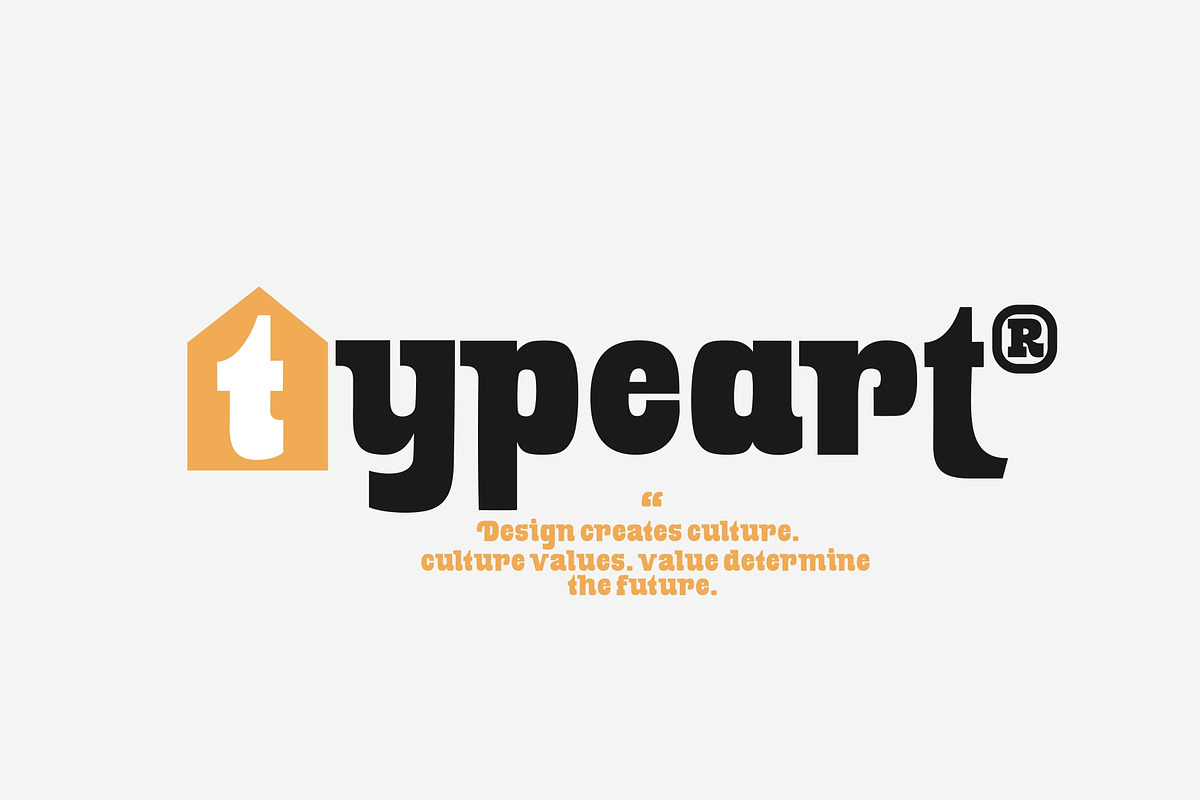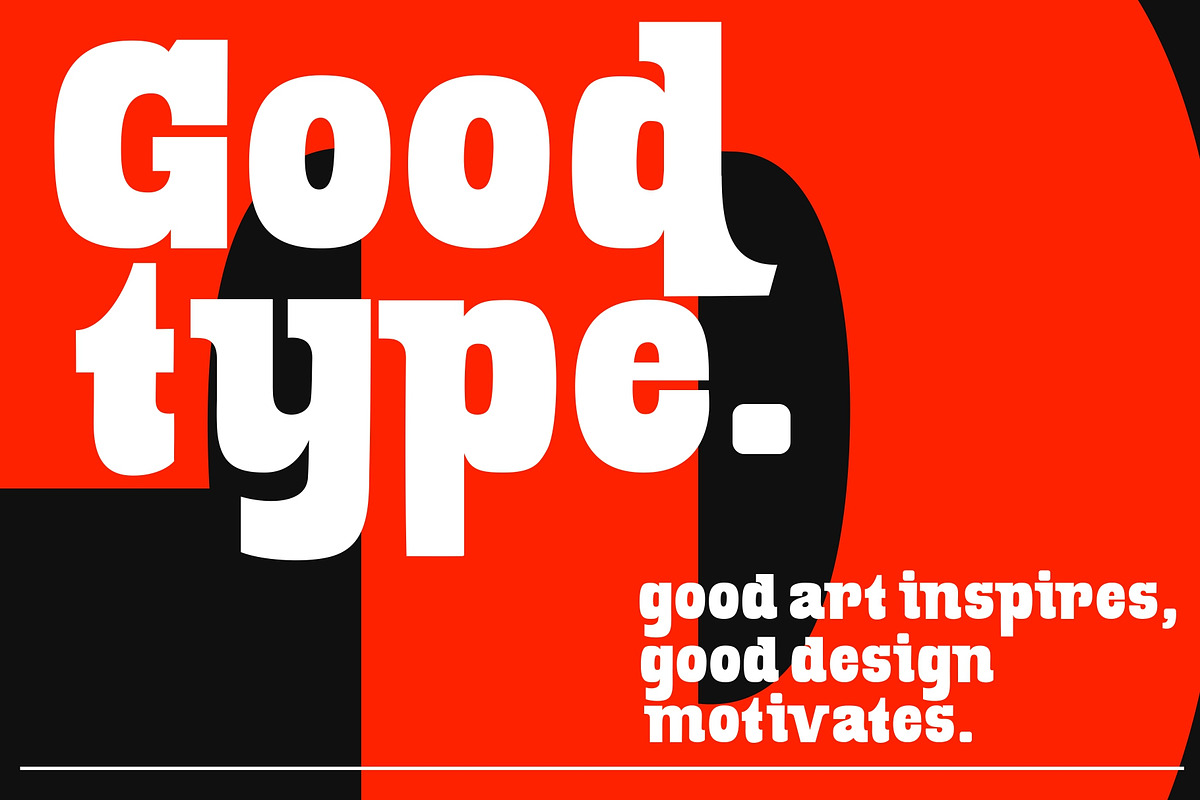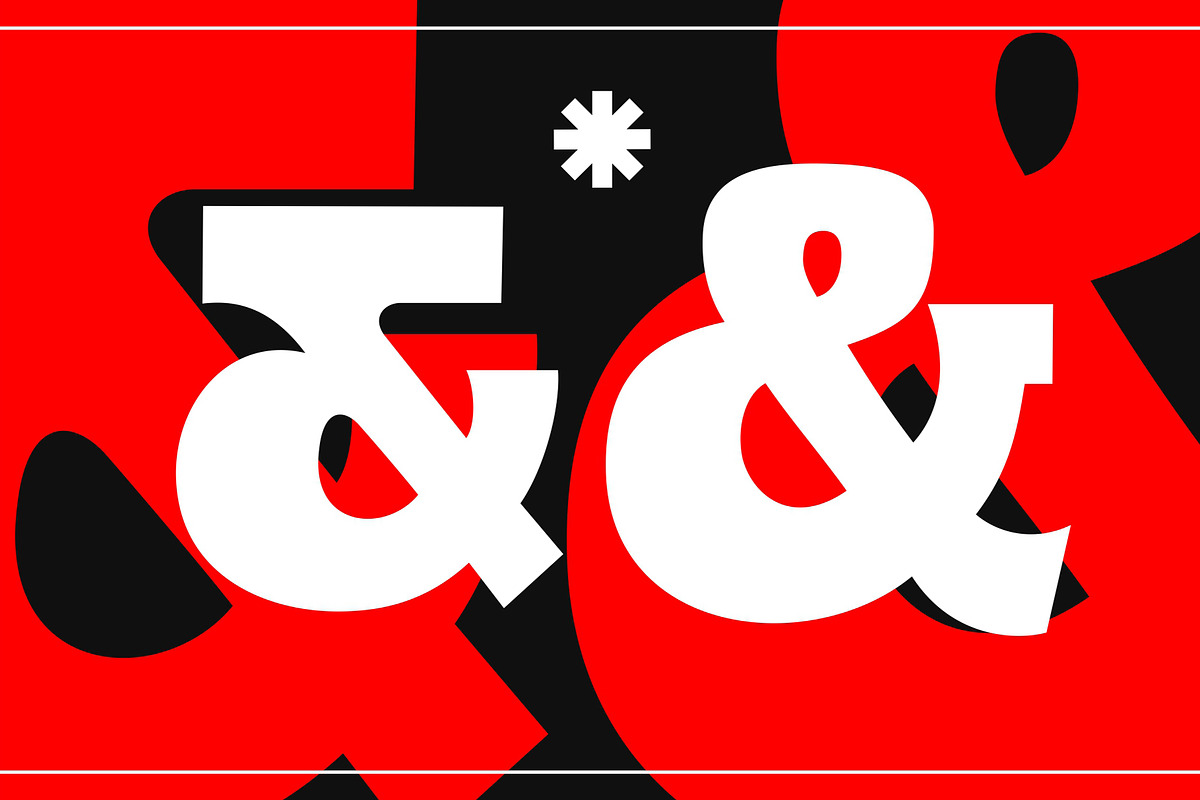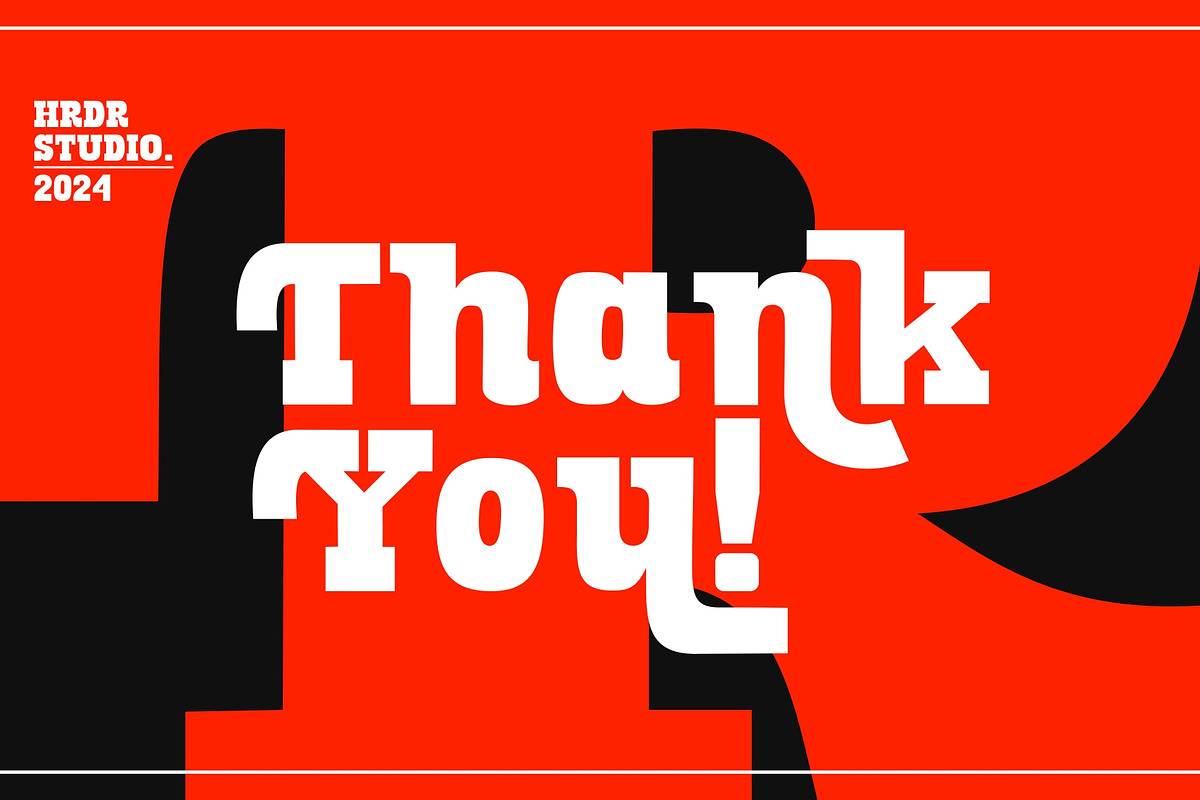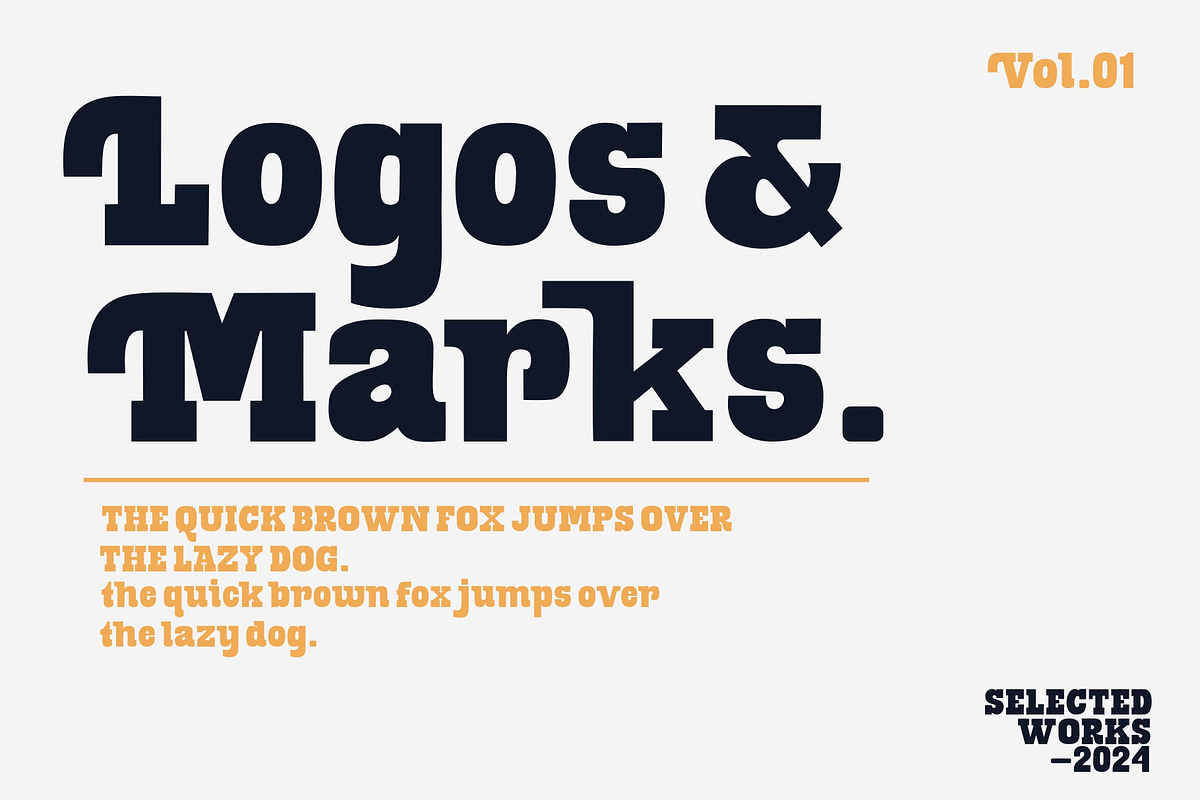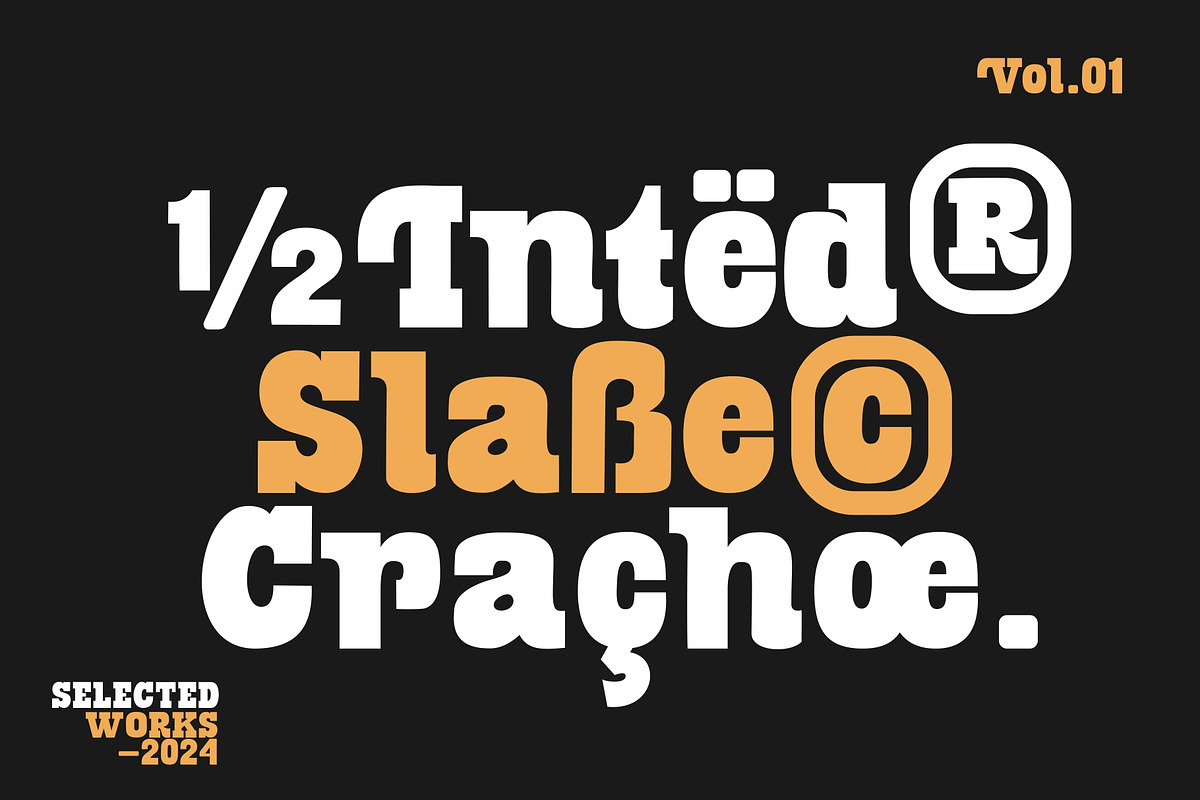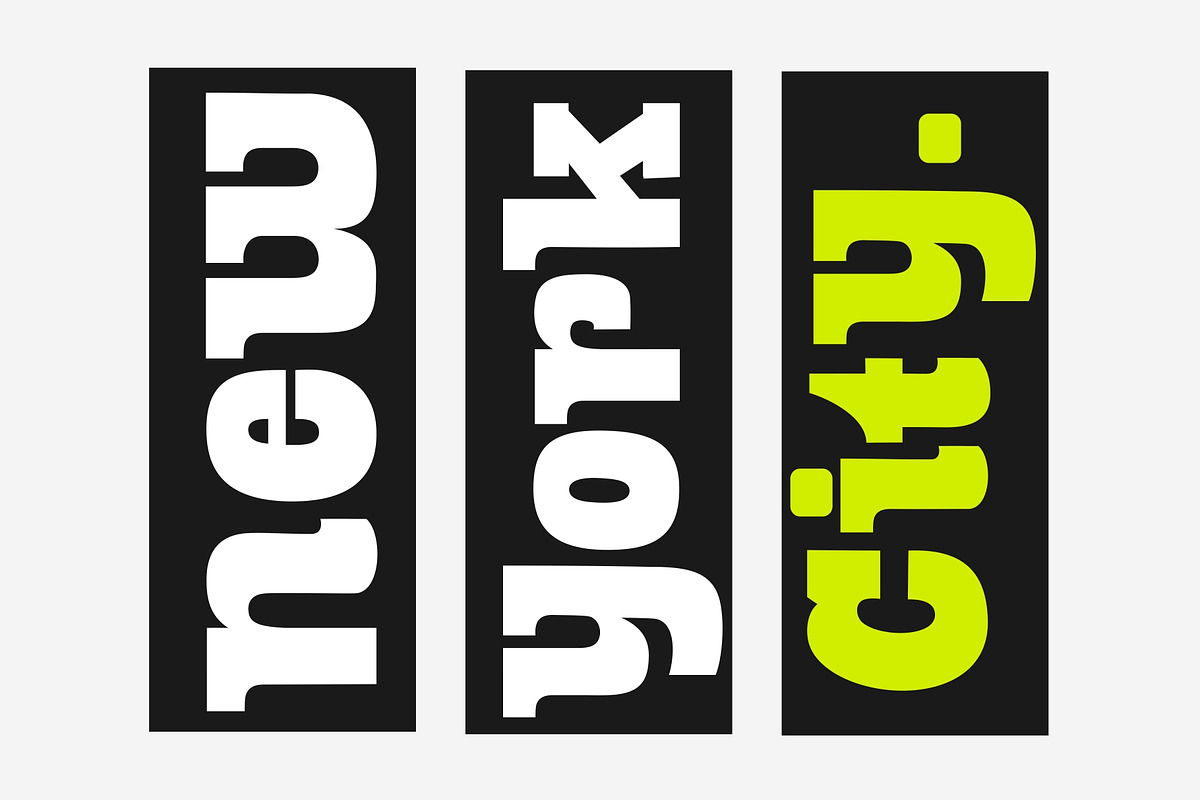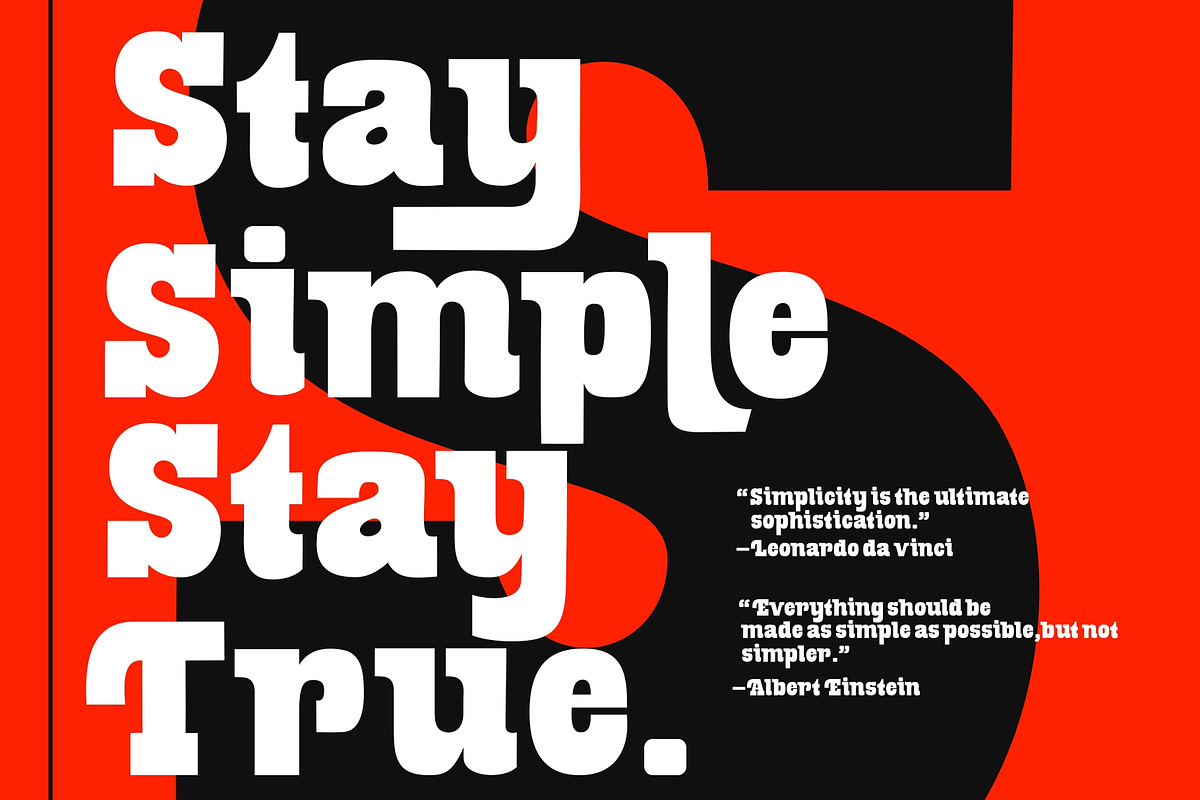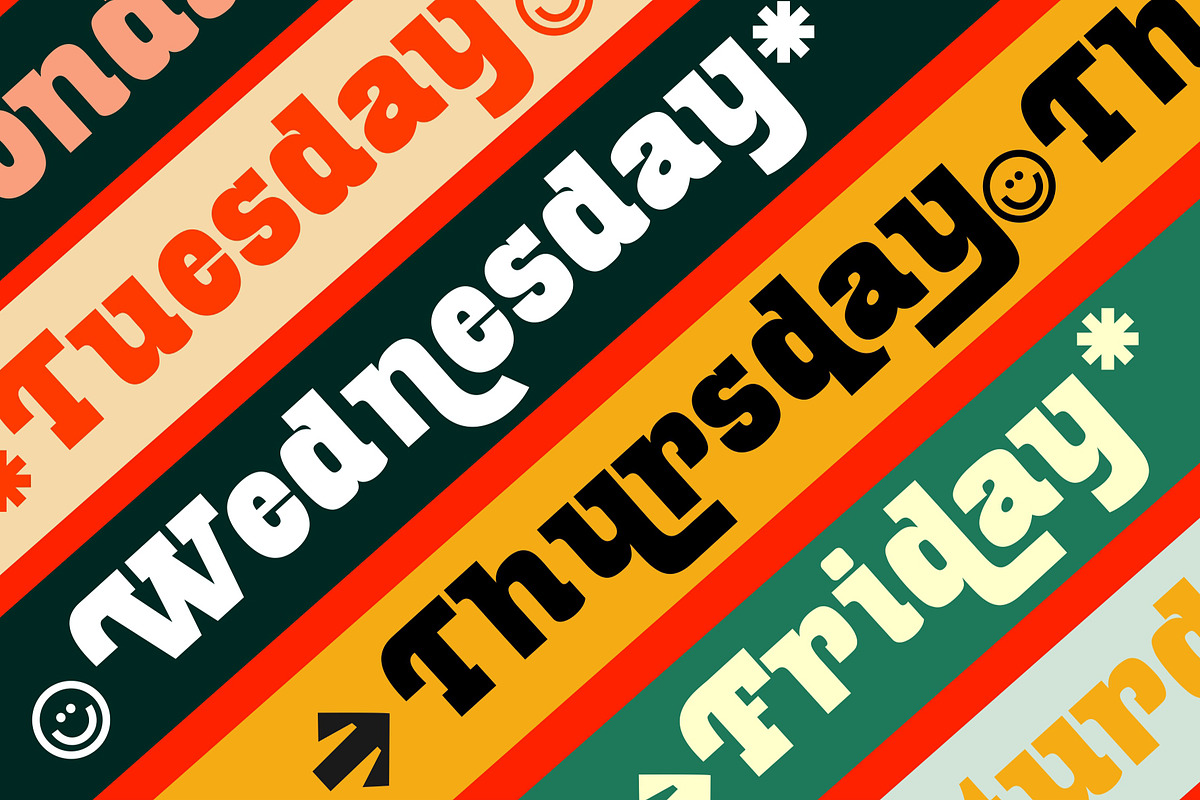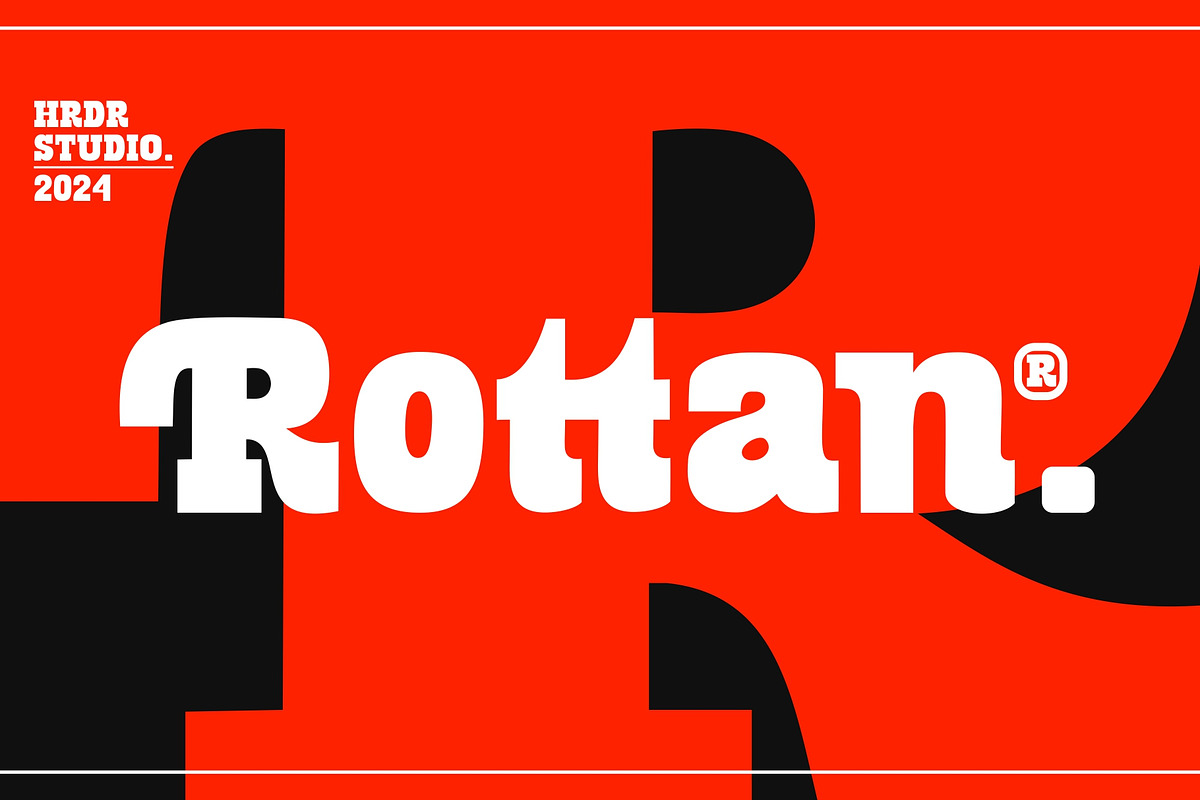
Rottan
Say hello to Rottan ! Rottan is a slab serif font meant for branding, The incharacters were build in bold and chunky personality, It's great for headlines and titles but is also very legible in sentence case. perfect for crafting, branding, invitation, stationery, wedding designs, social media posts, advertisements, product packaging, product designs, label, Posters, photography, special events, or anything.
- numeric & Multilingual support
- Stylistic Alternates with Ss01, Ss02, Ss03, Ss04